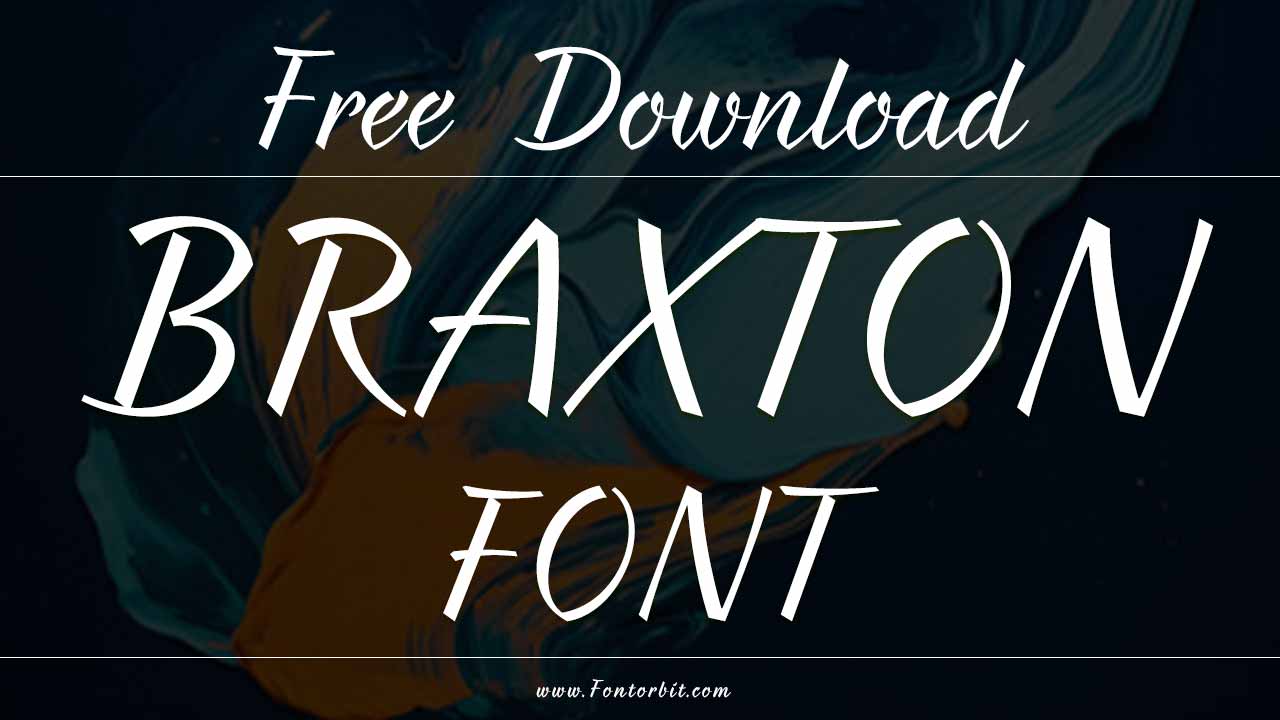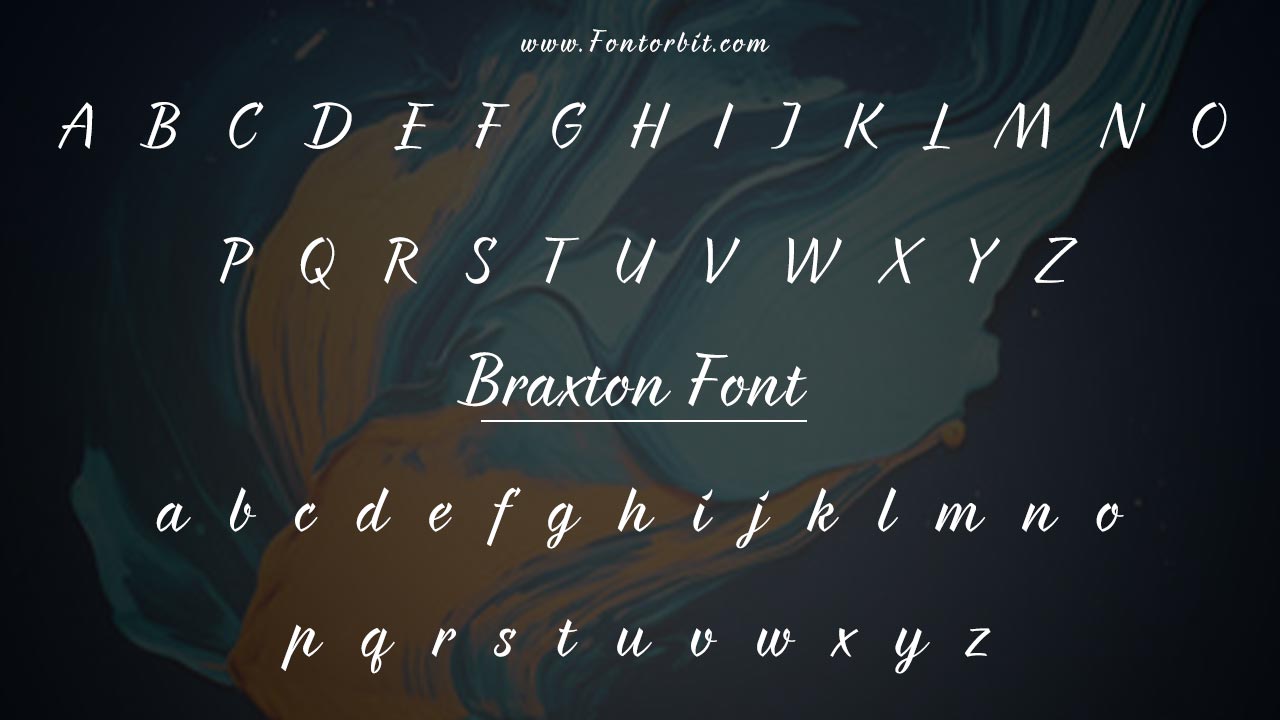
Braxton Font, designed by Evgeny Tkhorzhevsky, is a striking brush-style script font that has become popular for its elegant and flowing design. With its well-finished calligraphic style, Braxton is ideal for graphic design projects that require a balance of boldness and sophistication. This article will explore how you can use Braxton Font to create stunning designs, from logos to posters, and even for website typography.
The Braxton Font Family
Braxton is available in several font family options, each offering flexibility in design projects. Here’s a quick look at the different weights and styles in the Braxton family:
- Braxton Regular
- Braxton Light
- Braxton Bold
- Braxton Black
- Braxton Book
| Style: | Brush |
Each style in the family provides a unique look, allowing you to choose the right weight for your specific design needs.
Top Uses For Braxton Font
Braxton Font shines in a variety of design areas. Here are some of the best ways to incorporate it into your projects:
- Logo Design
Braxton’s flowing script and bold brush strokes make it an excellent choice for creating memorable logos. Whether you’re designing a new brand or updating an existing logo, Braxton adds a touch of elegance and clarity to your design.
- Poster & Advertising
For posters, advertisements, and promotional materials, Braxton’s bold design and versatile weights work well in catching the eye while maintaining readability. Its well-finished calligraphic details stand out, especially when used for headlines and key messages.
- Web & Social Media Graphics
In website design and social media posts, Braxton adds flair to headings, quick links, and text blocks. Its clear typography makes it readable across digital platforms, ensuring your content always looks sharp and engaging.
- Printed Materials & Invitations
Braxton also excels in printed materials like invitations, business cards, and flyers. The stylish script elevates the design, giving it a personalized touch while ensuring legibility at smaller sizes.
- Editorial & Magazine Layouts
For magazines and editorial design, Braxton’s flowing letterforms create an attractive, sophisticated look for titles and sections. It brings a sense of luxury and elegance to the page, especially when paired with complementary fonts.
Why Choose Braxton Font?
Braxton is much more than just a font—it’s a typographic tool that can transform your designs. Here’s why you should consider using it:
- Versatile Font Weights: With 5 unique font weights, you can adapt Braxton to any project, whether it’s a light, delicate invitation or a bold logo design.
- Highly Readable: Despite its brush-style design, Braxton ensures clarity in both large and small sizes, making it perfect for a wide range of applications.
- Ligatures for a Seamless Look: The ligatures in Braxton help create smooth transitions between characters, giving your text a natural, handwritten feel.
- Perfect for Web & Print: Whether you’re designing for web print design areas or physical printed materials, Braxton adapts beautifully.
2.What Makes Braxton Font Stand Out From Other Fonts?
Braxton’s well-finished calligraphic design and versatile font family make it stand out in both web and print applications. Its ligatures ensure smooth, natural flow, making it easy to read while looking stylish.
3.Does Braxton Support Multiple Languages?
Yes, Braxton includes a variety of characters and glyphs that support multiple languages, making it perfect for international use.